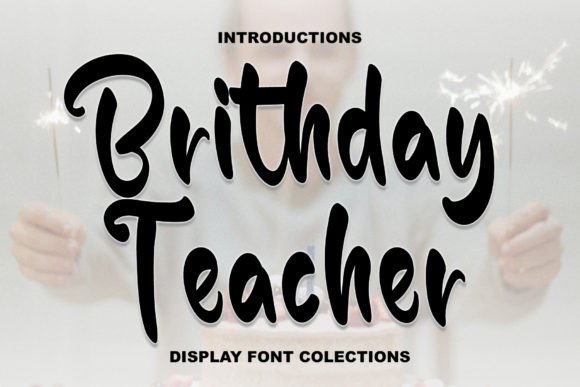
The Birth of a Beautiful Font: A Deep Dive into Brithday Teacher
I’ll never forget the moment I stumbled upon the perfect font for a project I was working on. I had been searching for what felt like hours, trying out font after font, but nothing seemed quite right. That was until I discovered Brithday Teacher – a sweet and friendly handwritten font that instantly captured the essence of my design. In this article, we’ll take a closer look at what makes Brithday Teacher so special and how you can make the most of it in your own designs.
A First Impression: What Makes Brithday Teacher So Special?
Brithday Teacher is a beautiful, handmade font that exudes warmth and friendliness. Its natural and unique style makes it incredibly versatile, suitable for a wide range of designs, from party invitations and greeting cards to branding and packaging. The only limit is your imagination!
So, what do I love about Brithday Teacher? Here are a few things that really stand out:
- ✨ Unique and Handmade Look: Brithday Teacher has a distinct, handwritten feel that’s perfect for designs that need a personal touch.
- ✅ Highly Versatile: This font can be used for a wide range of projects, from formal to informal, and everything in between.
- 💫 Easy to Read: Despite its unique style, Brithday Teacher is surprisingly easy to read, even at smaller font sizes.
Of course, no font is perfect, and Brithday Teacher does have a few small quirks:
- 🤔 Limited Formality: While Brithday Teacher is versatile, it’s not the best choice for super formal or corporate designs.
- ⚠️ Some Letter Combinations: As with any handwritten font, some letter combinations may not flow as smoothly as others.
The Story Behind Brithday Teacher: A Designer’s Inspiration
While the true story behind Brithday Teacher remains a mystery, it’s easy to imagine that the designer was inspired by the joy of celebrating special occasions. Perhaps they wanted to create a font that would bring a smile to people’s faces and make their designs feel more approachable and friendly.
| What makes Brithday Teacher unique? | Brithday Teacher’s handmade, handwritten style and natural flow make it stand out. |
| Is Brithday Teacher suitable for body text? | While Brithday Teacher is easy to read, it’s best suited for headings and short paragraphs. |